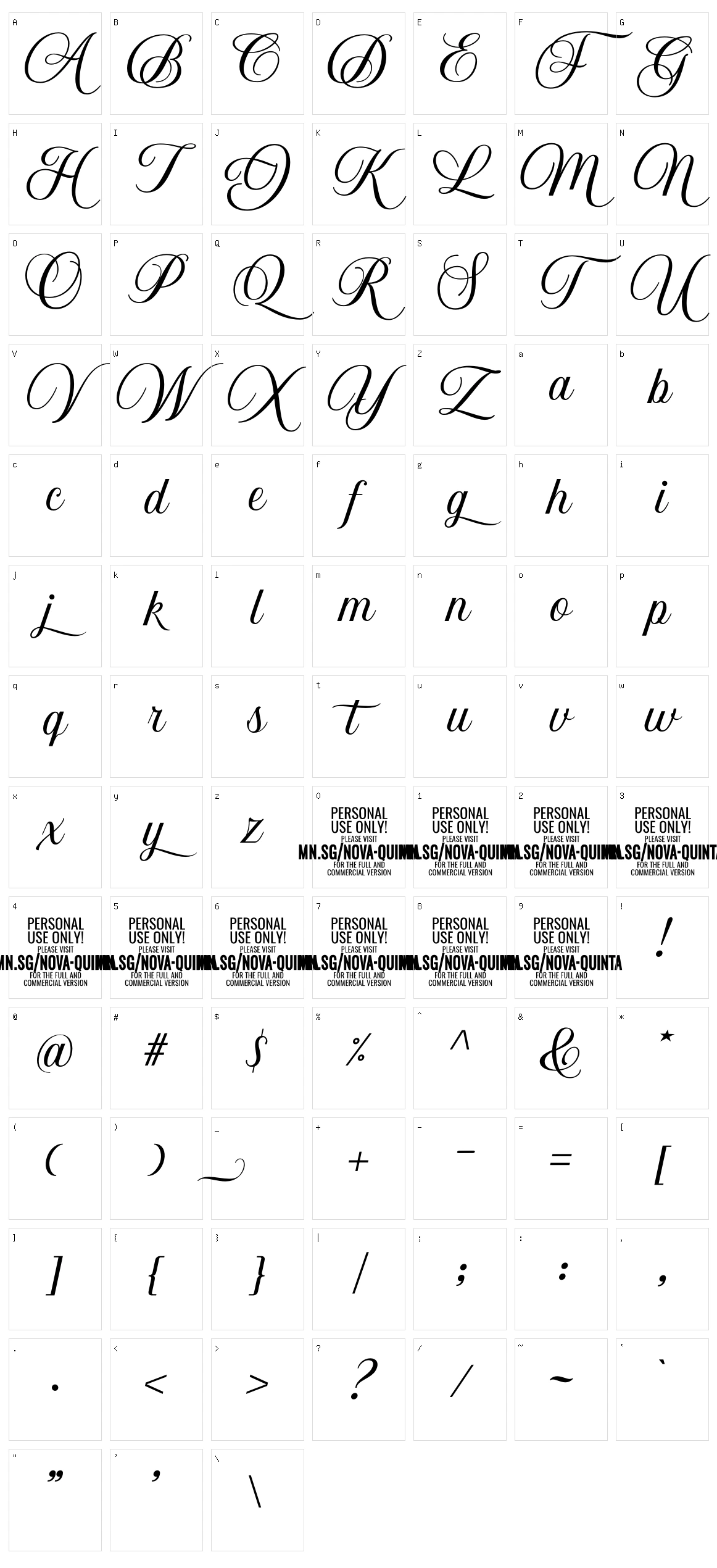
Nova Quinta is a breathtaking, enchanting formal script font that weaves an air of magic and sophistication into your designs. With its delightful swirls and exquisite swashes, this font radiates a lovely charm, perfect for adorning wine labels, farm produce packaging, and luxury branding.
Imagine your design coming to life with the genuine elegance of Nova Quinta, transforming your work into an enchanting piece of art. The font's irresistible beauty and decorative allure make it a dreamy choice for projects that require a touch of refinement and grace.
The Nova Quinta font family includes four mesmerizing styles to suit various design needs:
Regular: A gracefully balanced, enchanting style
Bold: A more assertive and captivating presence
Italic: A whimsical dance of flourishes and movement
Bold Italic: The perfect blend of boldness and flair
Unleash your creativity with the advanced OpenType functionality of Nova Quinta. This font family ensures top-notch quality and provides you with full control and customizability. It includes stylistic and contextual alternates, ligatures, and other features to make your designs a vibrant, one-of-a-kind masterpiece.
Nova Quinta embraces an extensive lingual support, covering all Latin-based languages, from Northern Europe to South Africa, from America to South-East Asia. It contains all the characters and symbols you'll ever need, including all punctuation and numbers.